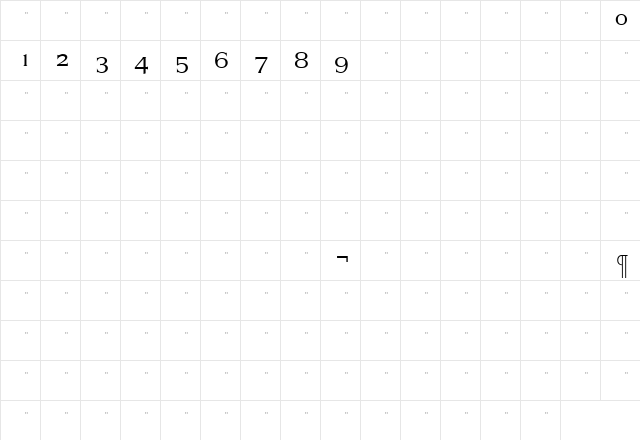
SilveradoLightOldStyleFigures Roman
Design Context for SilveradoLightOldStyleFigures Typeface
SilveradoLightOldStyleFigures brings classic typographic sensibility to the table — its serifs and measured letterforms reflect centuries of print heritage. Its slender proportions lend an understated elegance to any composition.
Pro Tip: Use SilveradoLightOldStyleFigures with generous line-spacing for the most refined reading experience — its light weight benefits from room between lines.